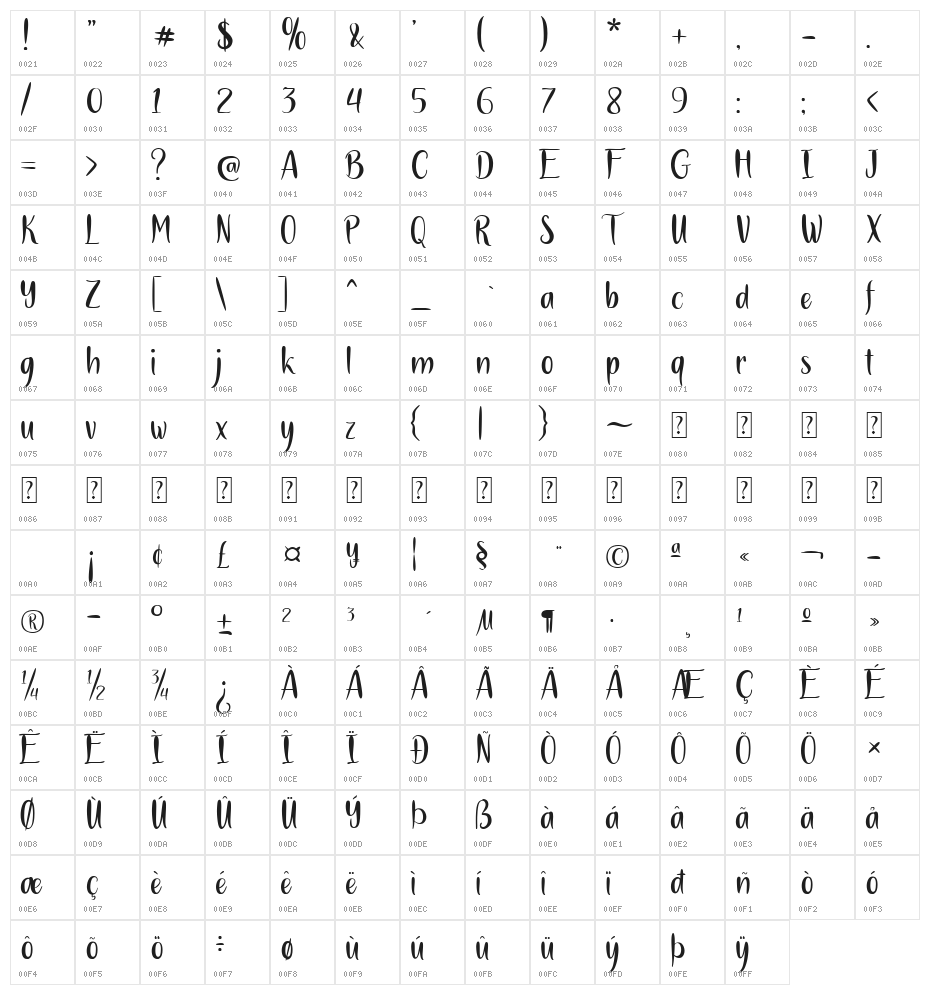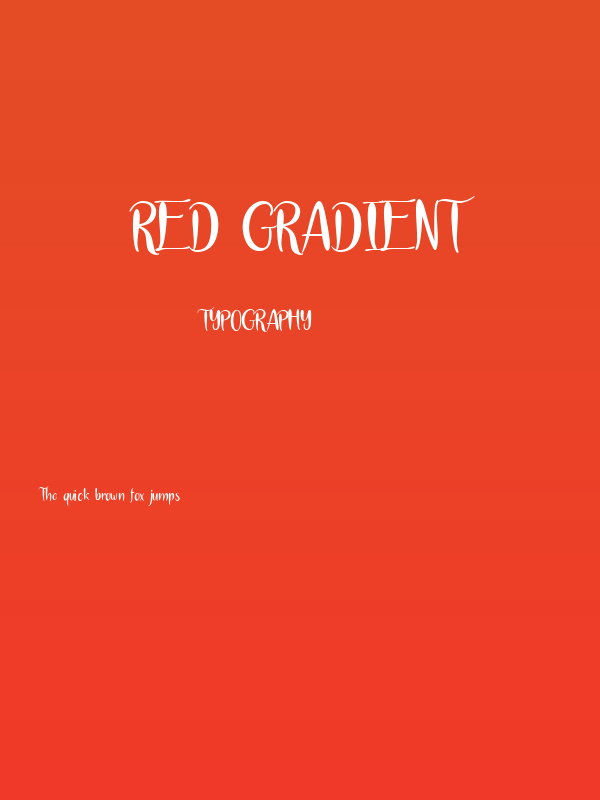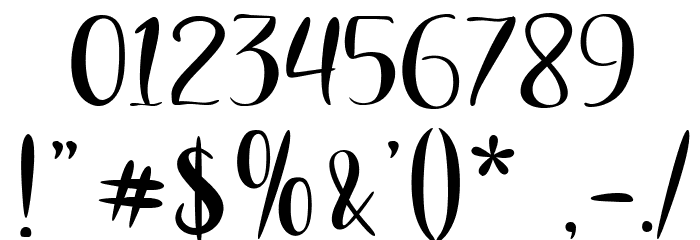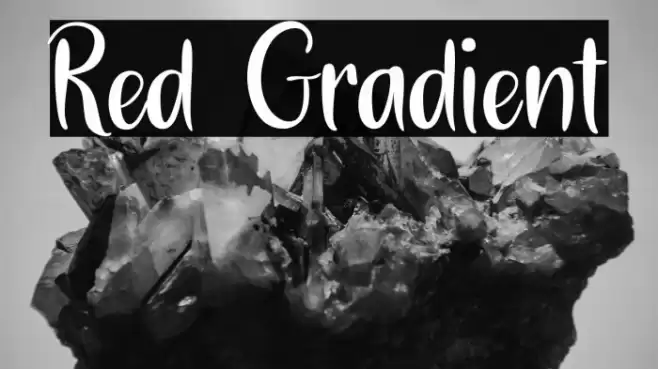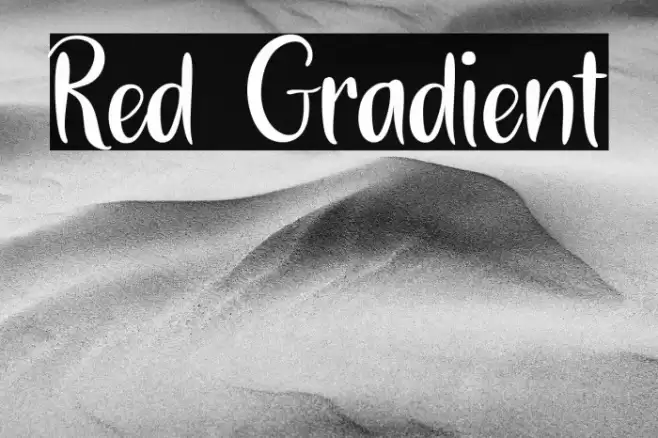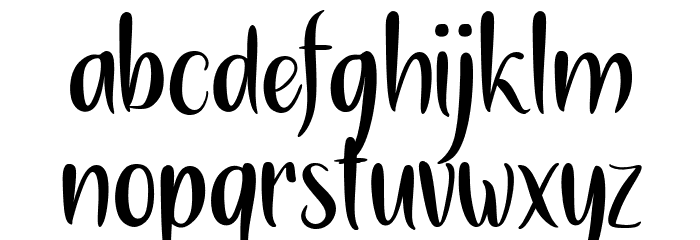
Red Gradient Font
Red Gradient Description
This font features a playful and dynamic script style with a handwritten feel. The characters are characterized by smooth, flowing curves and varying stroke widths, giving it an energetic and lively appearance. The uppercase letters are bold and slightly elongated, while the lowercase letters maintain a consistent rhythm with a touch of whimsy. The numerals are rounded and complement the overall style, adding to the font's versatility. The special characters are well-integrated, maintaining the font's cohesive look. This font is ideal for projects that require a personal and approachable touch.
| Proposed Projects | Great for greeting cards, invitations, branding, and social media graphics. |